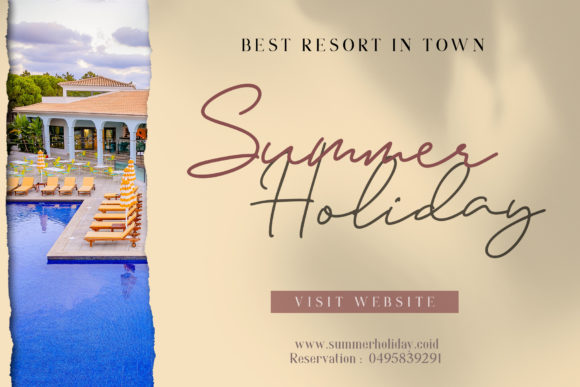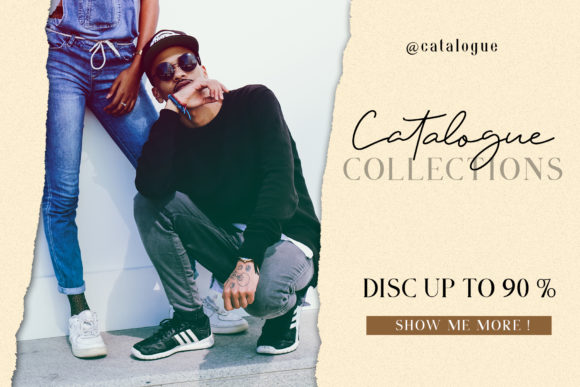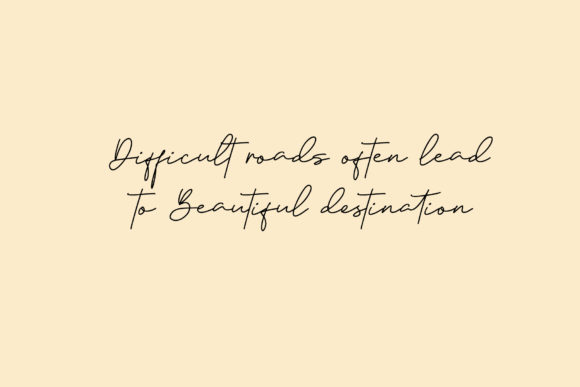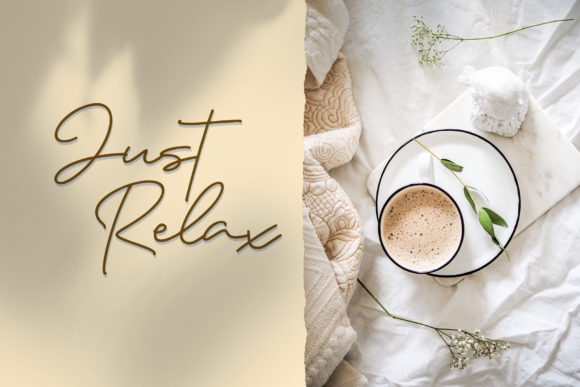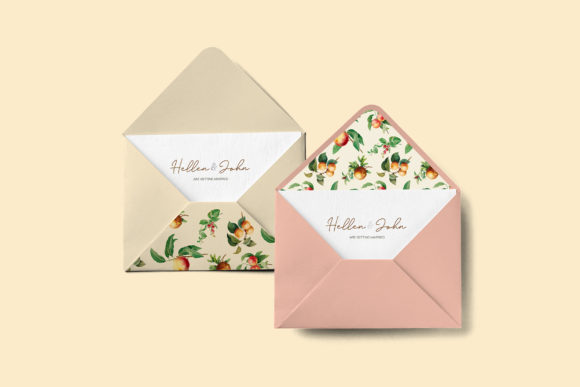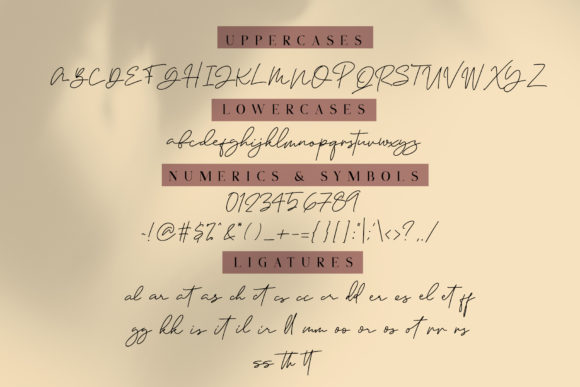
Introduction to Janethville Font
Janethville is a unique and light handwritten font with a bold twist.
Get inspired by its unique charm .
Key Features of Janethville Font
Why Choose Janethville Font?
Janethville Font offers exceptional quality and versatility, making it a valuable addition to your design toolkit. Whether you’re creating for personal projects or commercial use, Janethville Font delivers professional results.